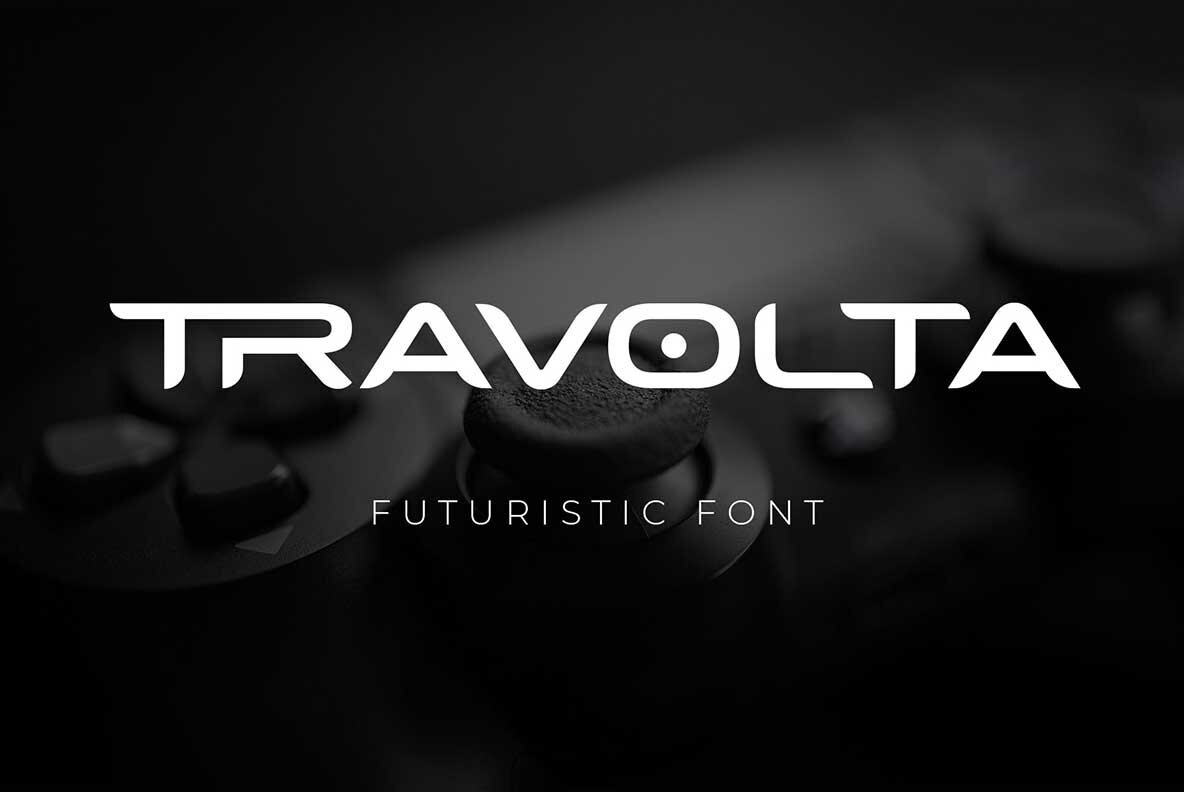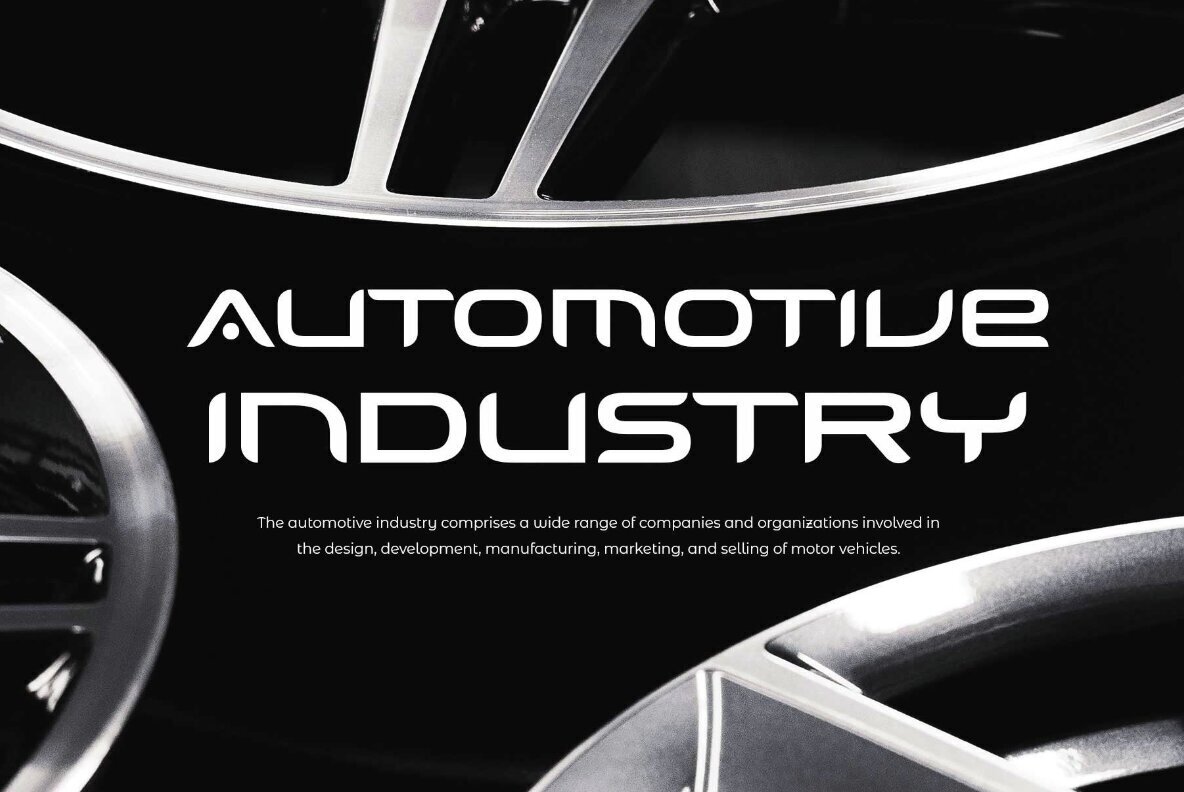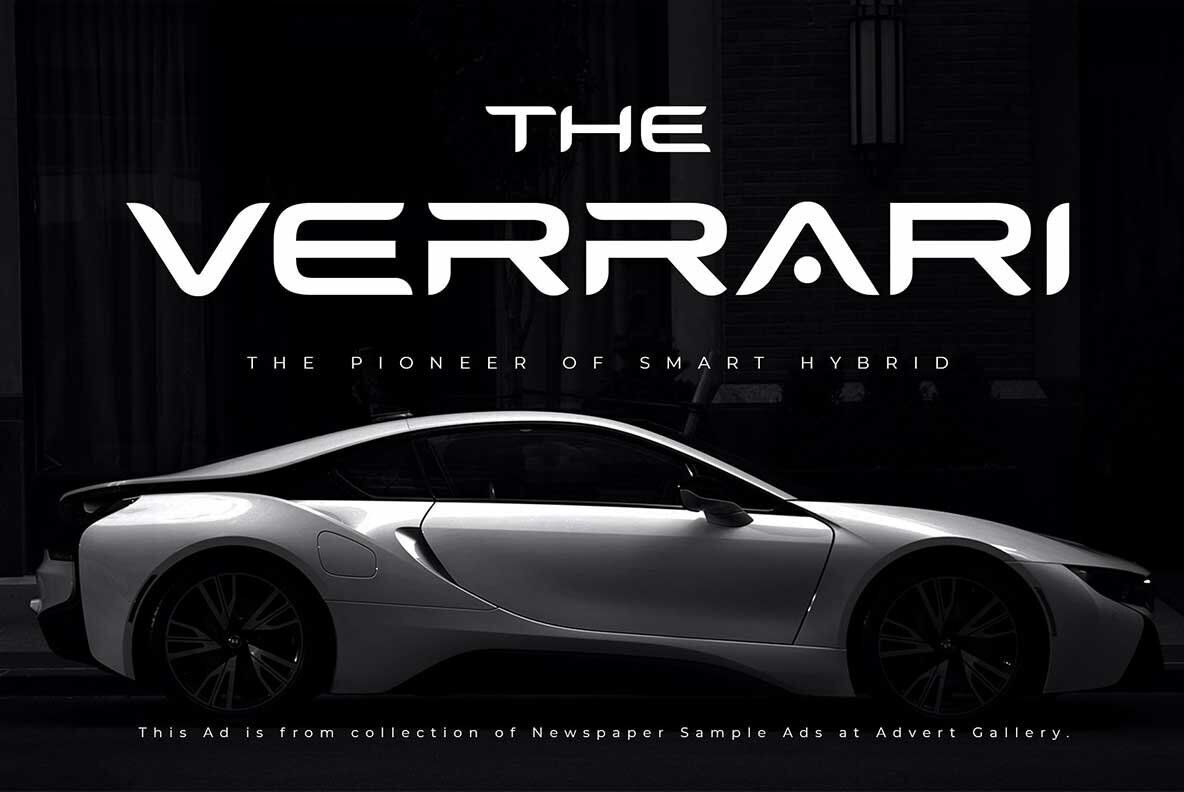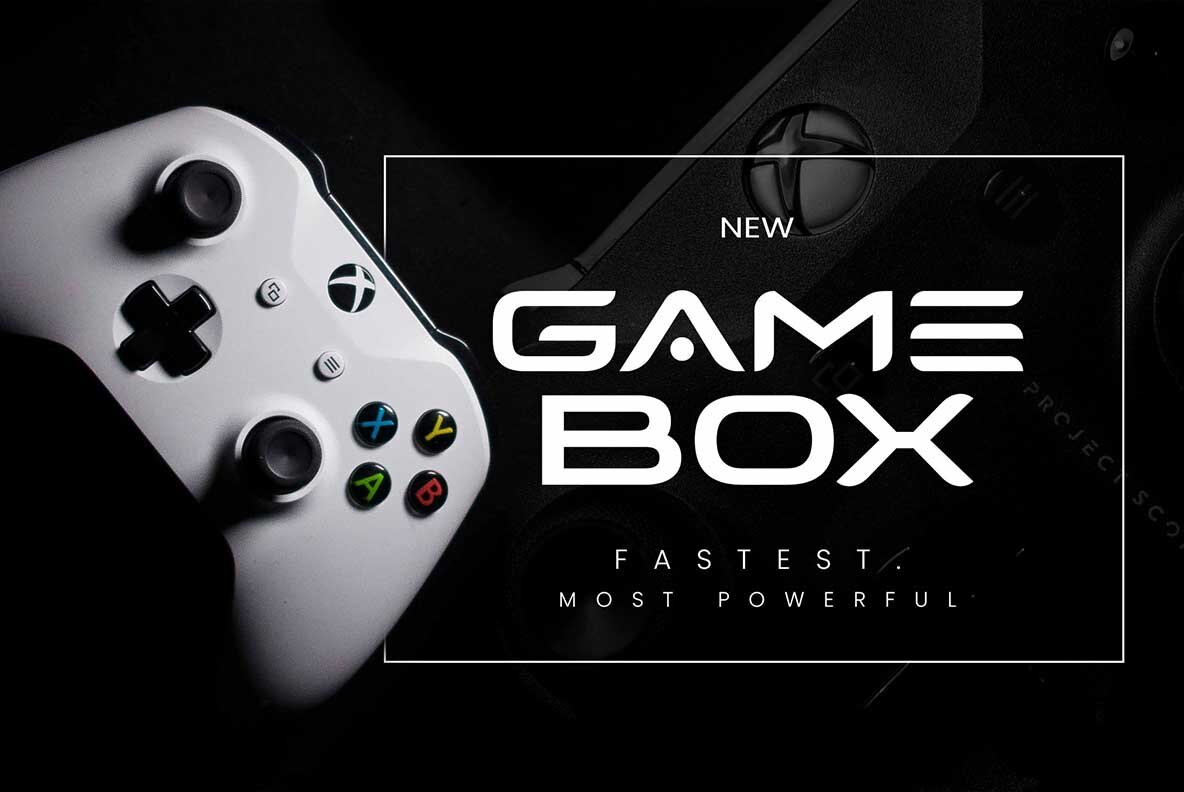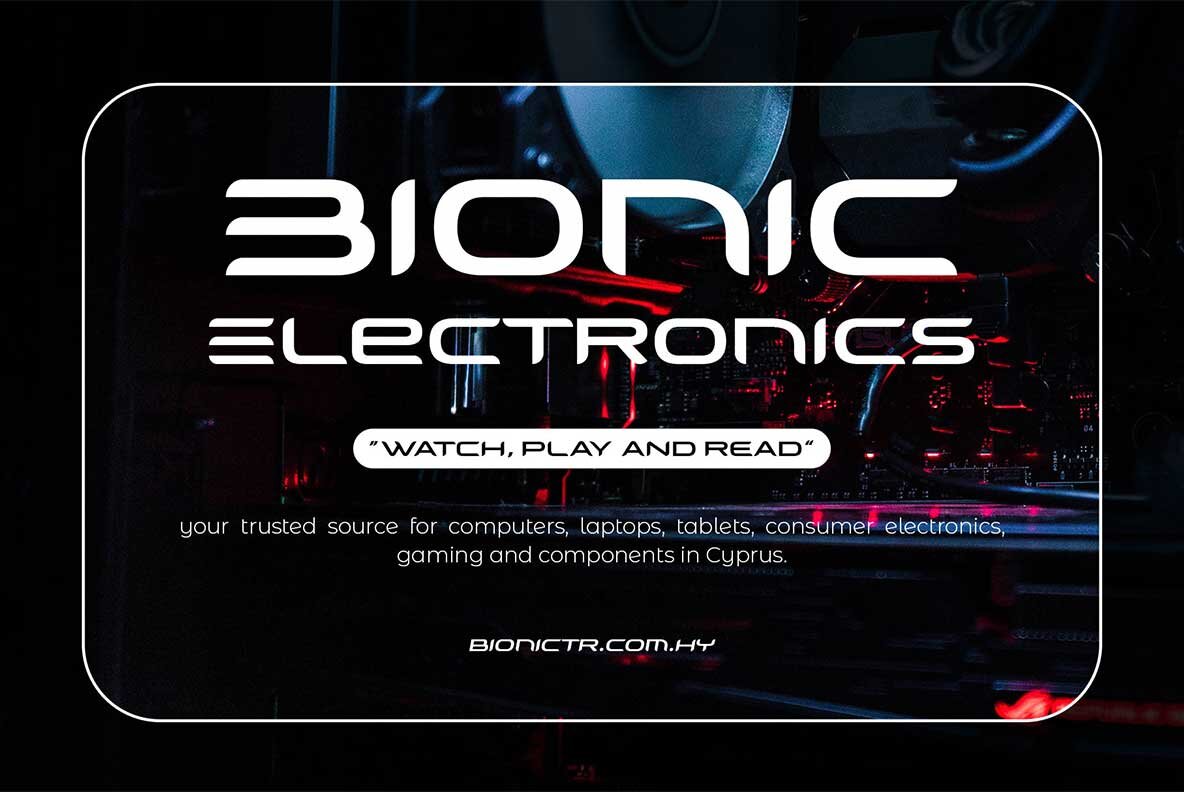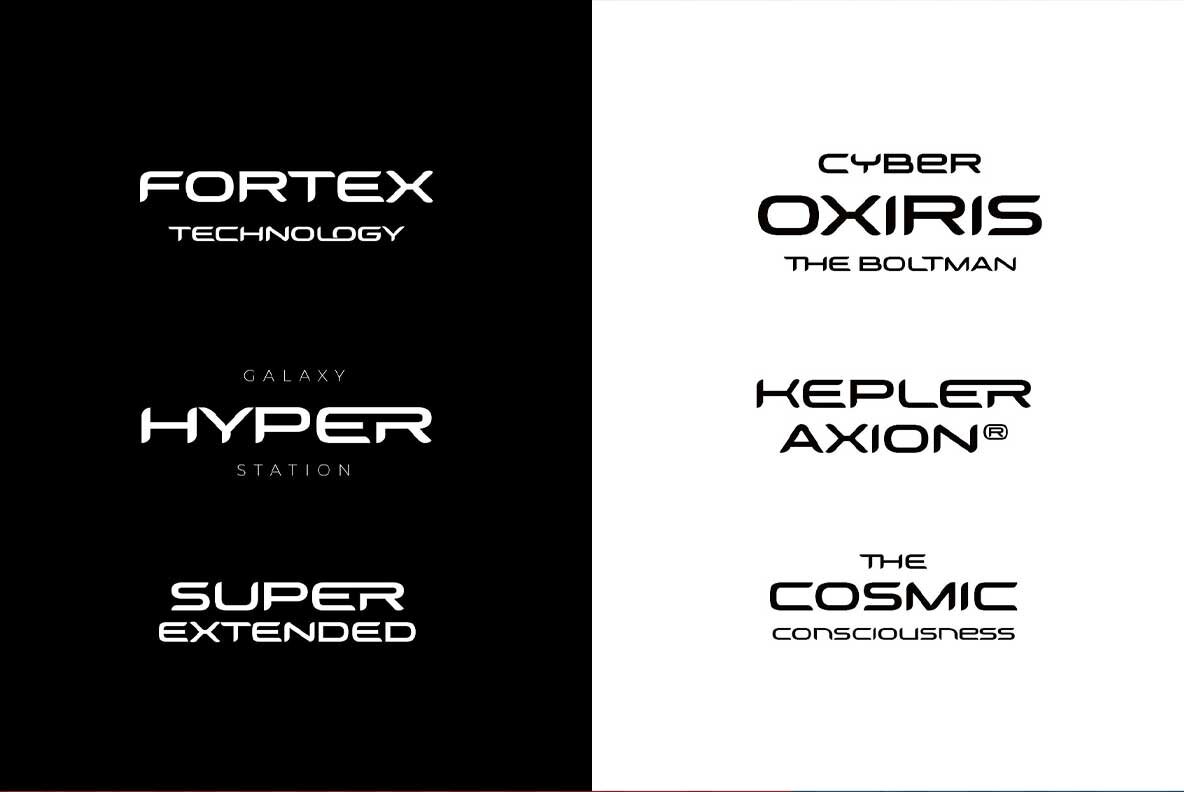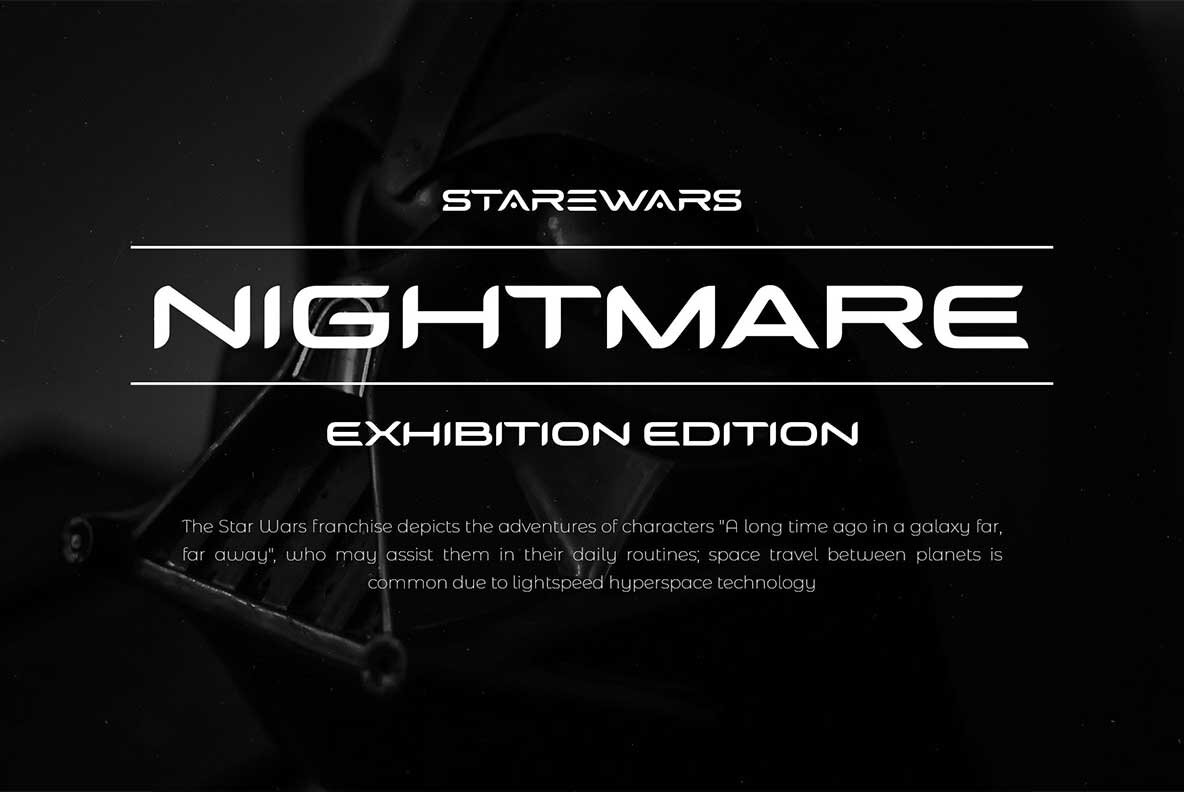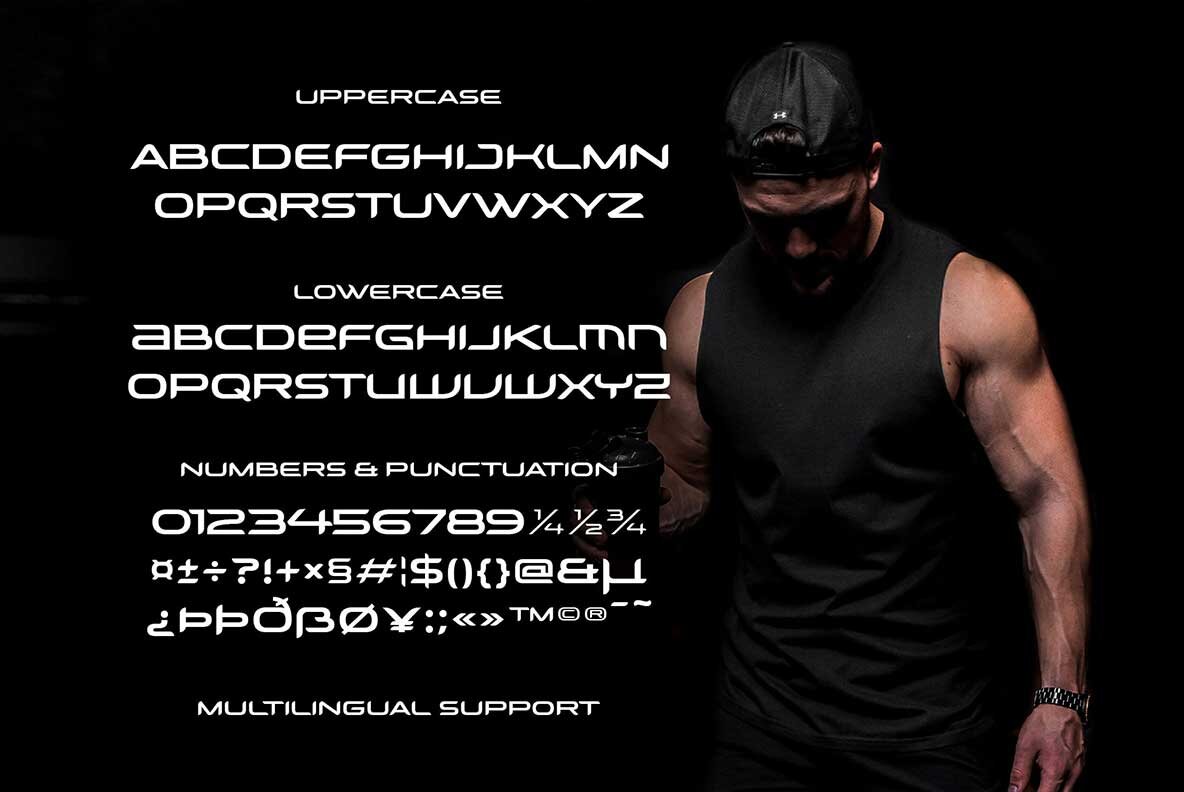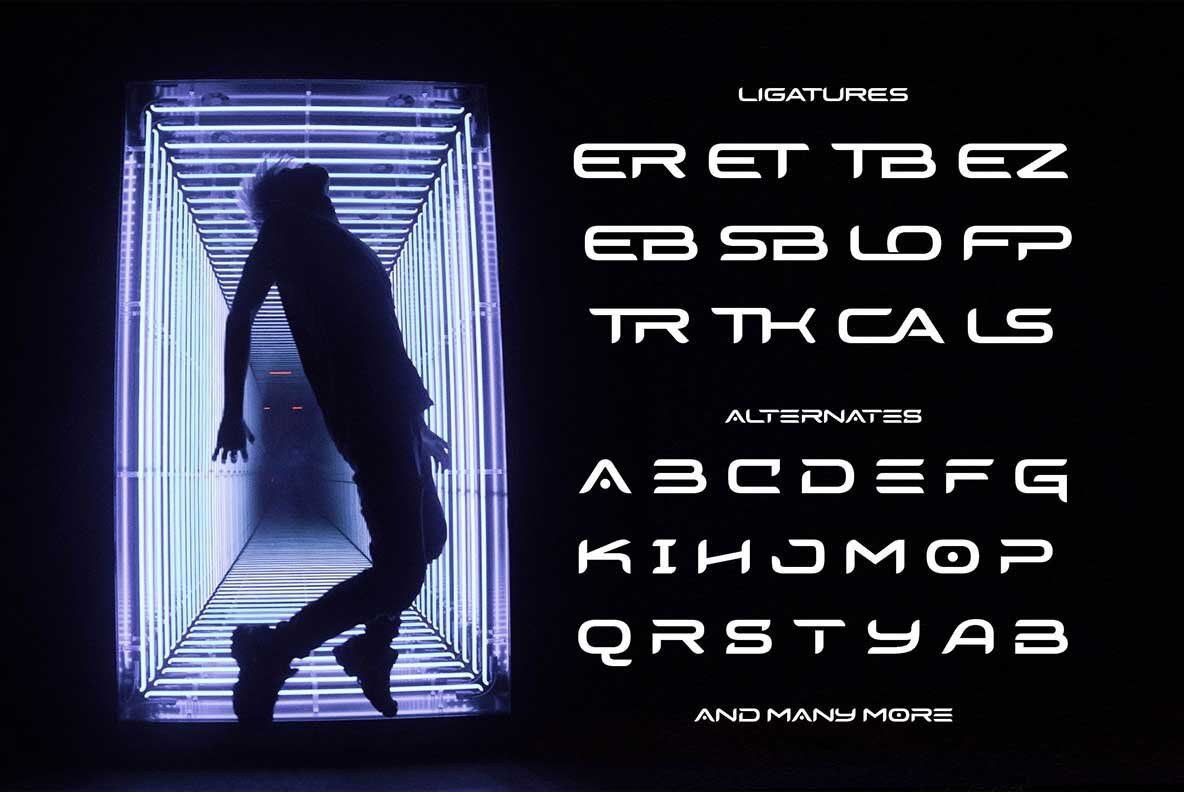
Travolta Font
Travolta Regular
Unleash modern aesthetics with Travolta, a futuristic font designed by Novitype. Capturing the essence of technology and innovation, this font's design is reminiscent of sports logos, techno art, Sci-Fi cinema, cutting-edge games, and modern gadgets. With its broad shapes and minimalist style, Travolta embodies a sleek and futuristic vibe. Perfectly suited for a variety of creative projects, Travolta shines in applications like logos, labels, posters, and packaging. It also enhances books, movies, presentations, and games. The addition of stylistic alternates and numerous ligatures helps to amplify that forward-thinking appeal, ensuring versatility and uniqueness in every use.Travolta: Embrace the Futuristic Edge